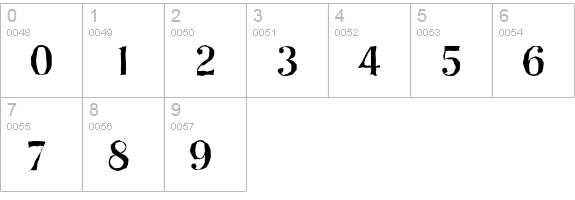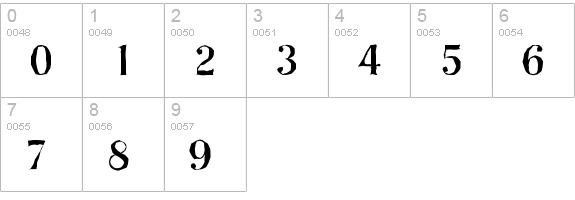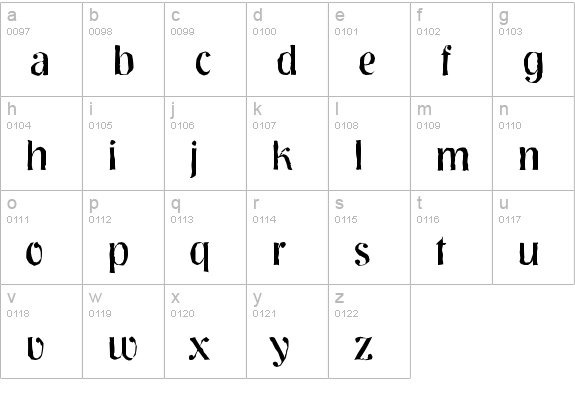
NashvilleAntique-Regular Font Details
NashvilleAntique-Regular is the standard, neutral variant in the NashvilleAntique typeface family \xE2\x80\x94 well suited to general body text, paragraphs, and standard typographic work.
NashvilleAntique-Regular font is a charming and elegant typeface that exudes a timeless vintage appeal. Its intricate details and classic design make it perfect for adding a touch of nostalgia to your projects. The font features ornate serifs and delicate curves that give it a sophisticated and refined look. Best of all, NashvilleAntique-Regular font is available for free download at FontsMarket.com. Whether you're working on a branding project, creating invitations, or designing a vintage-inspired website, this font is sure to add a touch of old-world charm to your designs. Embrace the beauty of the past with NashvilleAntique-Regular font and make your projects stand out with its unique and distinctive style.